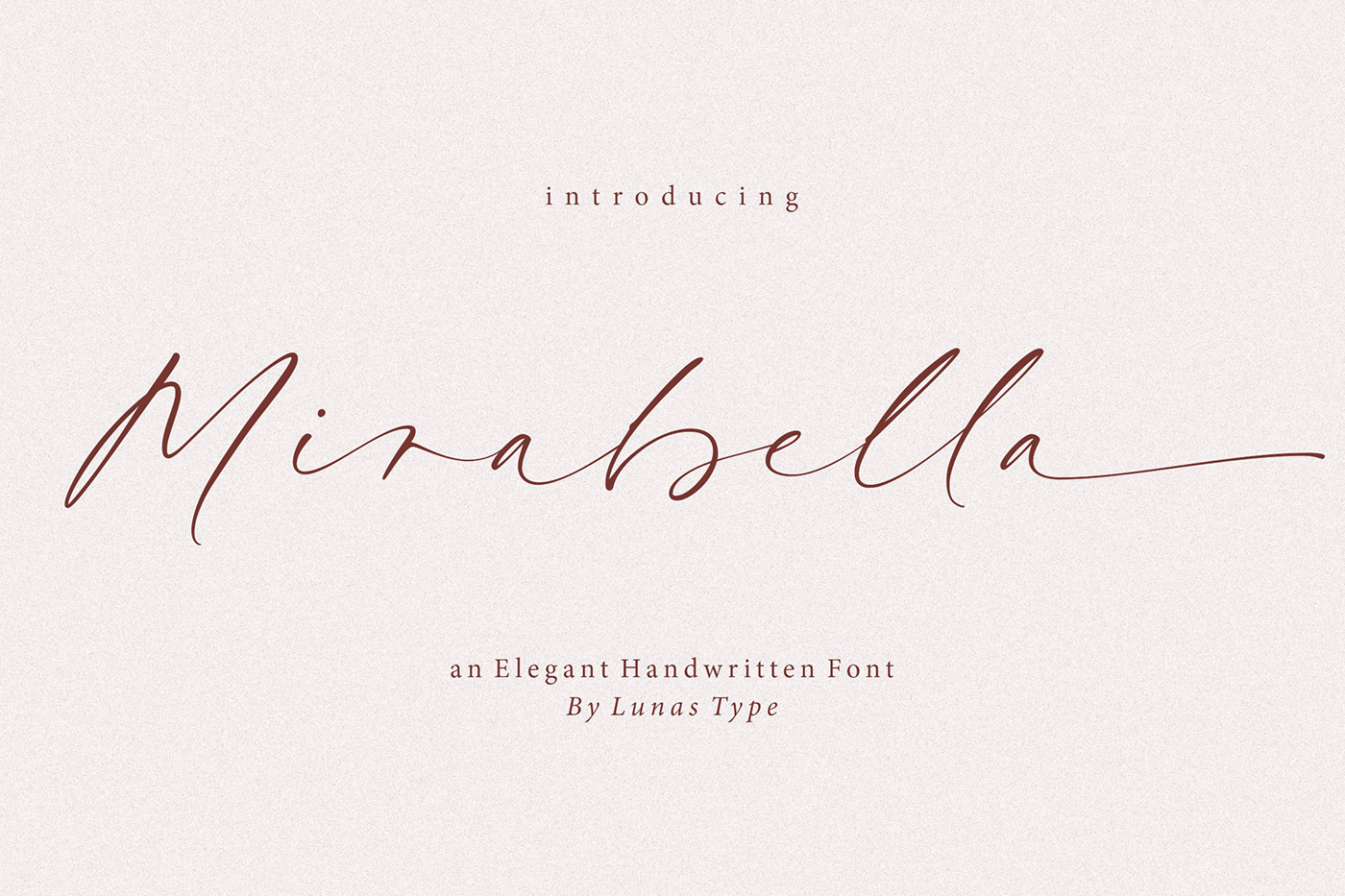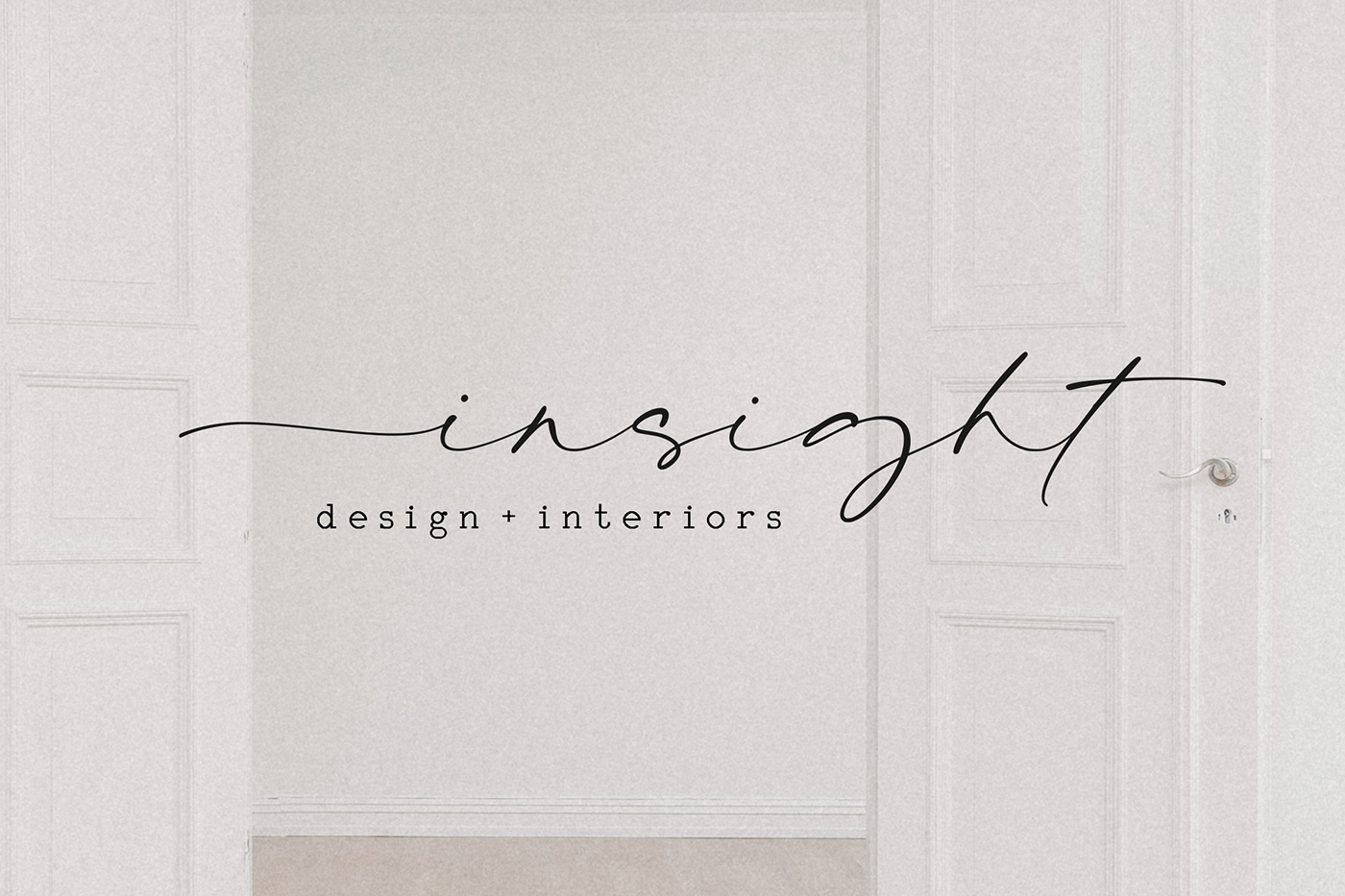
Introducing, Mirabella!
Mirabella is natural handwriting, made for chic elegant design.
A modern and minimal typeface packed with handwritten swashes and ligatures.
With its modern and natural look, Mirabella brings a charm feeling and clean style to your design such as wedding, stationery, logos, social media quotes, branding identity, and many more.
- Ending Swashes & beginning swashes.
- Numeral & Punctuation.
- ligature.
- Multilingual Support.
- Ending Swashes & beginning swashes.
- Numeral & Punctuation.
- ligature.
- Multilingual Support.